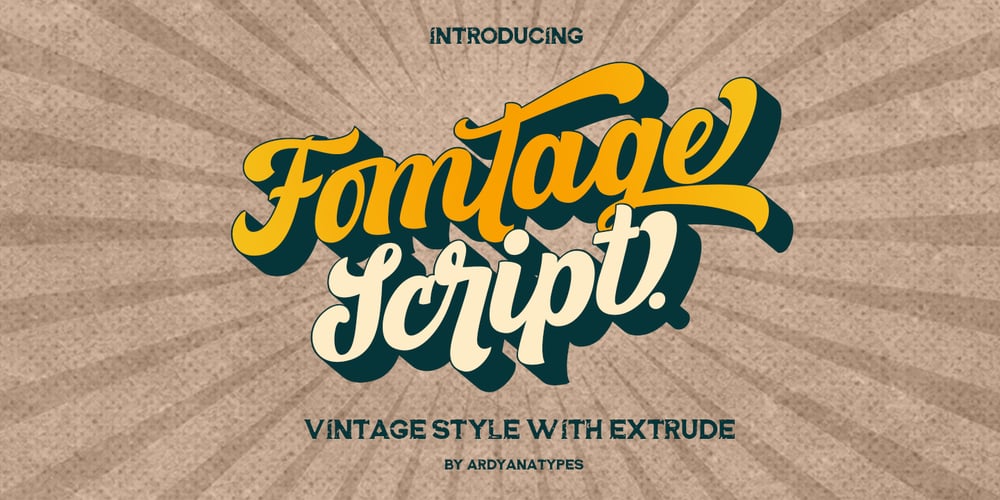
Fomtage Font Family was designed by Ardyana Putra and published by Ardyanatypes. Fomtage contains 2 styles and family package options. Fomtage Script is a font with a retro style made to make your designs look more attractive. Fomtage has 2 styles, namely script and extrude, this makes it 2 layers that can be combined so that it gives a very interesting shadow effect to add a retro impression. It will be very easy to use and will save you time on designing. Fomtage also has many opentype features such as ligature, and alternate. This will be very suitable for use as a logo, poster, packaging, merchandise, social media & greeting cards.